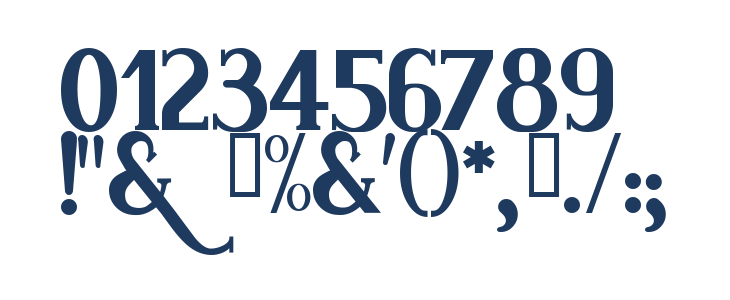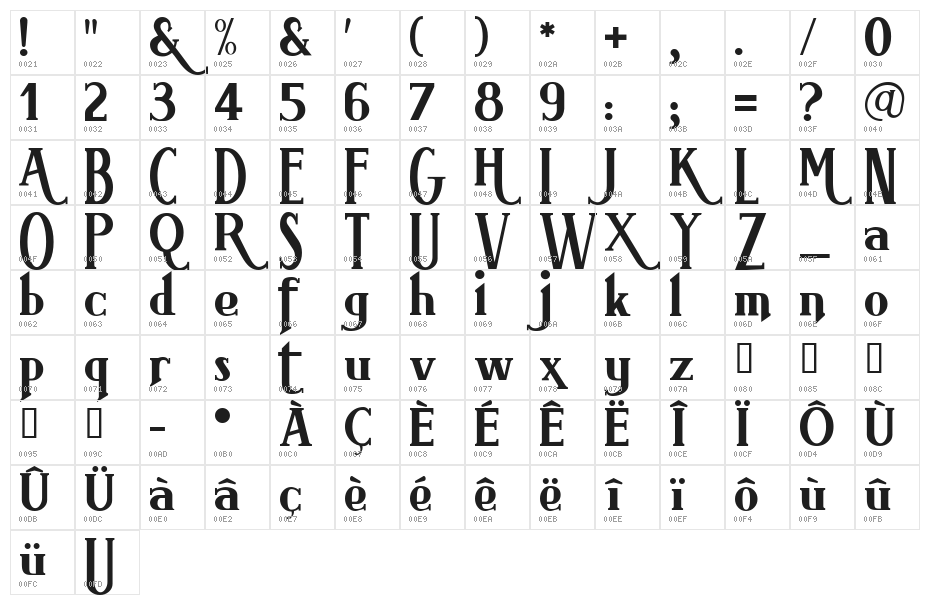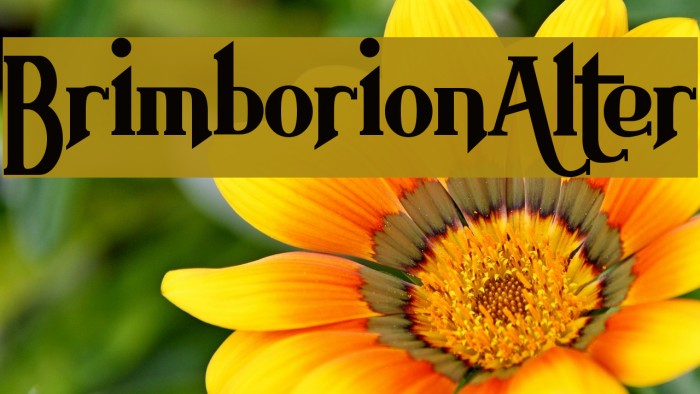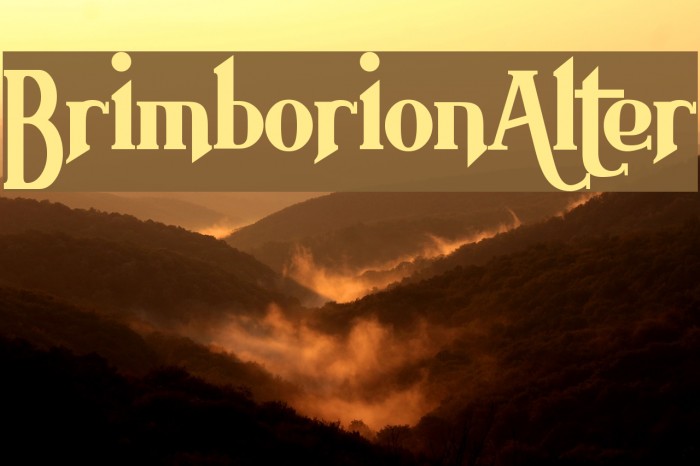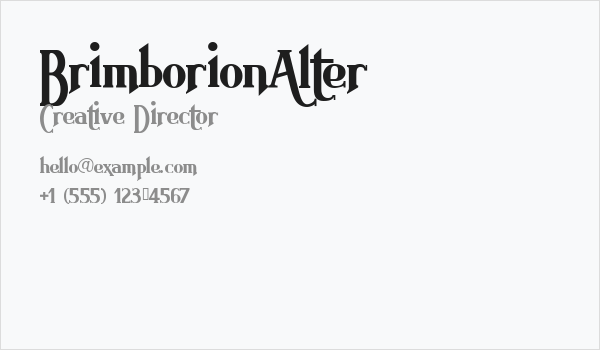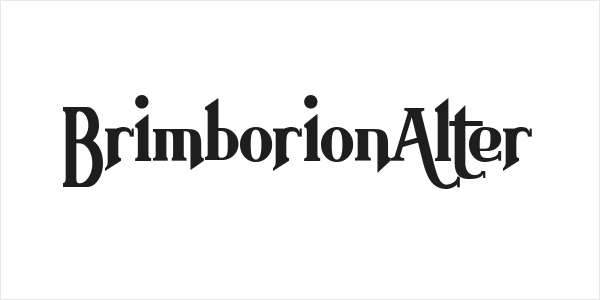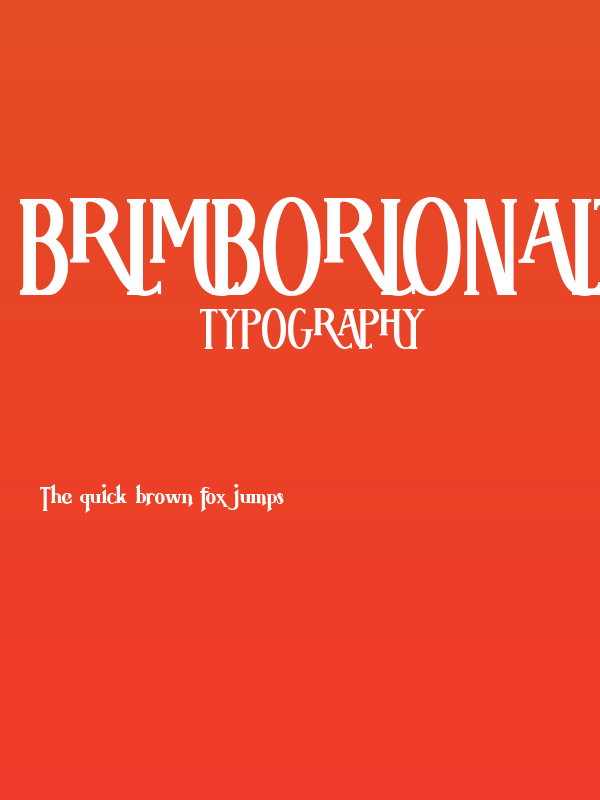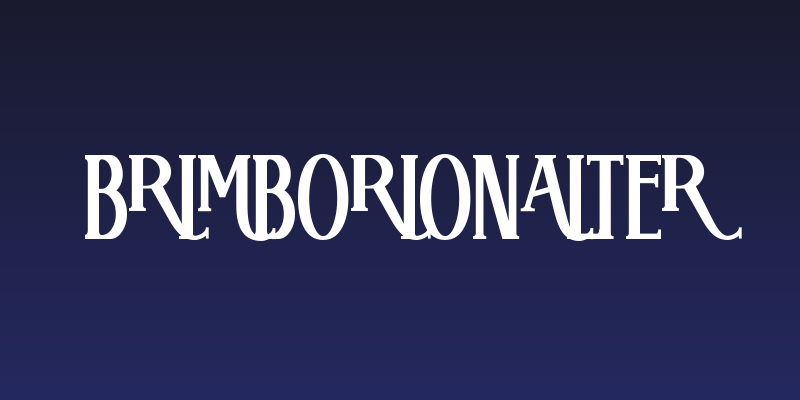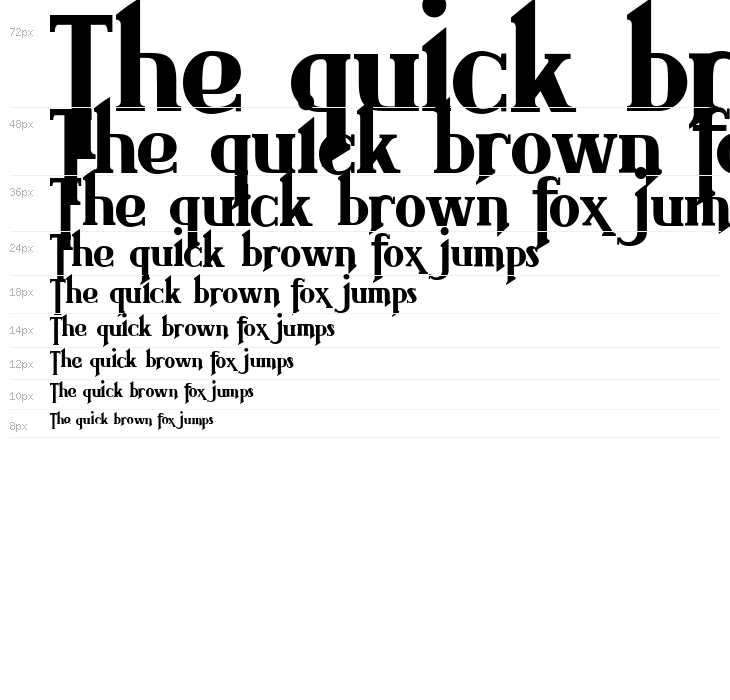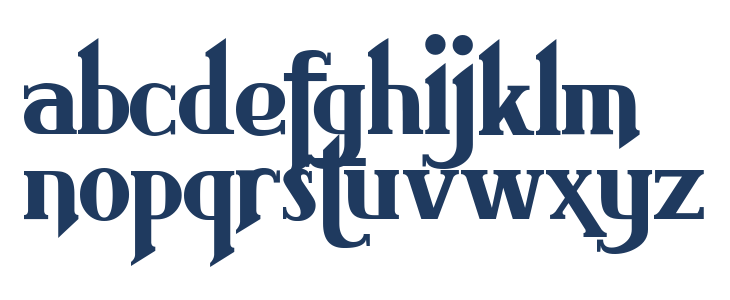
BrimborionAlter Font
BrimborionAlter Description
This font exhibits a unique blend of vintage and modern aesthetics, characterized by its tall, narrow letterforms and high contrast between thick and thin strokes. The uppercase letters are particularly elongated, giving a dramatic and elegant appearance. The lowercase letters maintain a consistent style, with some featuring distinctive curves and sharp angles. The numerals are bold and clear, ensuring readability. Special characters are designed with flair, adding to the font's decorative appeal. Overall, this typeface is both striking and versatile, suitable for a variety of creative applications.
| Overall Style | Vintage, Modern |
| Proposed Projects | Ideal for branding, poster design, book covers, and any project requiring a distinctive and elegant typeface. |